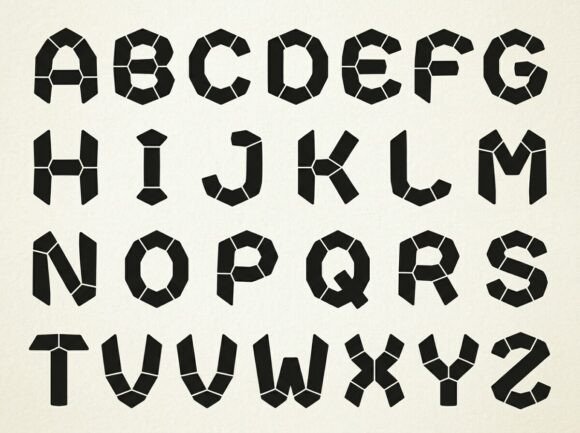
Introducing Dayle Font: A Stunning Decorative Display Font
Are you tired of using the same old fonts for your designs? Look no further than Dayle Font, a unique and artistic display font that’s sure to turn heads. With its strong visual personality and decorative elements, this font is perfect for creators who want to add a touch of elegance and sophistication to their work.
What Makes Dayle Font Special?
Dayle Font is a decorative display font designed to be the center of attention. Its unique artistic elements and strong visual personality make it perfect for bold headlines, artistic logos, and creative packaging. Whether you’re a designer, craftsperson, or DIY enthusiast, this font is sure to elevate your work to the next level.
One of the standout features of Dayle Font is its versatility. Despite its decorative nature, this font maintains a professional and polished finish, making it suitable for a wide range of applications. From high-end branding and advertising to craft projects and DIY tutorials, Dayle Font is the perfect choice for anyone looking to add a touch of style and sophistication to their work.
Before you purchase Dayle Font, it’s essential to note that this font is an ALL-CAPS (Uppercase Only) display typeface. This means that it does not include lowercase letters. However, this is by design, as Dayle Font is specifically created for high-impact headlines, logos, and decorative initials where every letter is a work of art.
Don’t let the lack of lowercase letters fool you – Dayle Font is still an incredibly versatile font that’s perfect for a wide range of applications. Whether you’re creating a bold headline, a stylish logo, or a decorative initial, this font is sure to make a statement.
Who is Dayle Font For?
Dayle Font is perfect for:
- Designers: Whether you’re a professional graphic designer or a DIY enthusiast, Dayle Font is a great addition to your font library. Use it to create stunning headlines, logos, and branding materials that will set you apart from the competition.
- Crafters: If you’re into crafting, scrapbooking, or other DIY projects, Dayle Font is a great way to add a touch of elegance and sophistication to your work. Use it to create beautiful journal pages, cards, and other paper crafts.
- Small Business Owners: If you’re looking for a unique and eye-catching font to use for your branding and marketing materials, Dayle Font is a great choice. Use it to create stunning headlines, logos, and packaging that will help your business stand out.
Tips for Using Dayle Font
Here are a few tips for getting the most out of Dayle Font:
- Use it sparingly: Because Dayle Font is a decorative display font, it’s best to use it sparingly. Use it for headlines, logos, and other high-impact elements, and pair it with a simpler font for body text.
- Experiment with colors and textures: Dayle Font looks great in a variety of colors and textures. Experiment with different combinations to find the one that works best for your project.
- Pair it with other fonts: Dayle Font pairs well with a variety of other fonts. Try pairing it with a simple sans-serif font for a bold and modern look, or with a script font for a more elegant and sophisticated look.
Dayle Font is a stunning decorative display font that’s perfect for creators who want to add a touch of elegance and sophistication to their work. With its unique artistic elements and strong visual personality, this font is sure to turn heads. Whether you’re a designer, craftsperson, or DIY enthusiast, Dayle Font is a great addition to your font library.